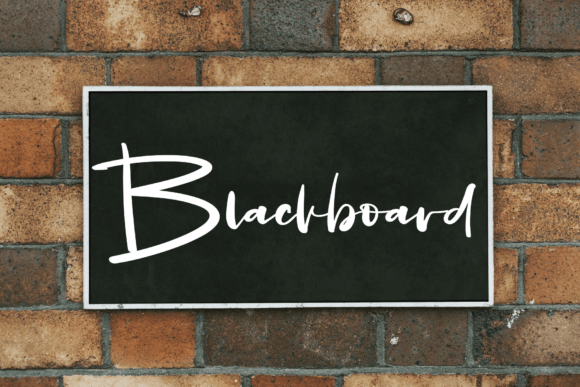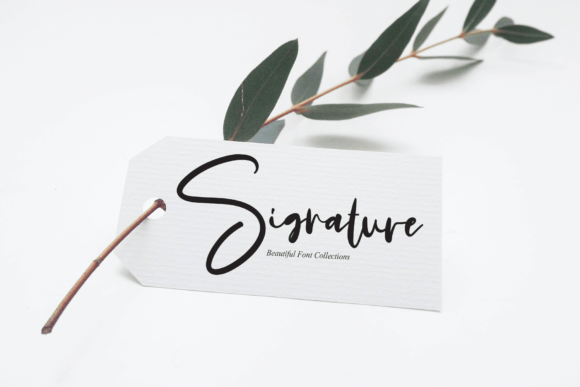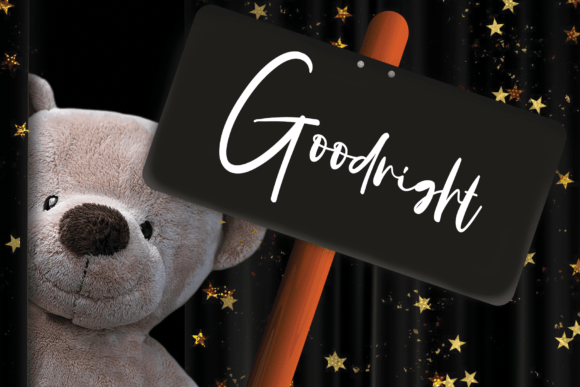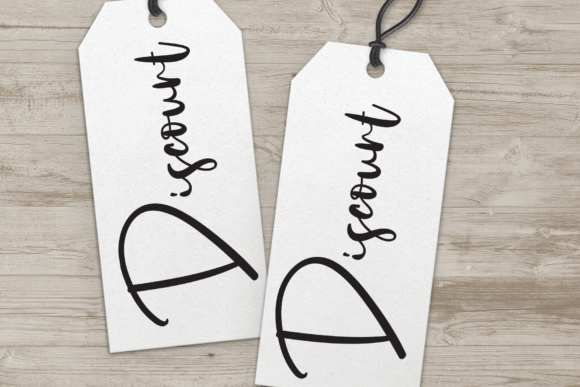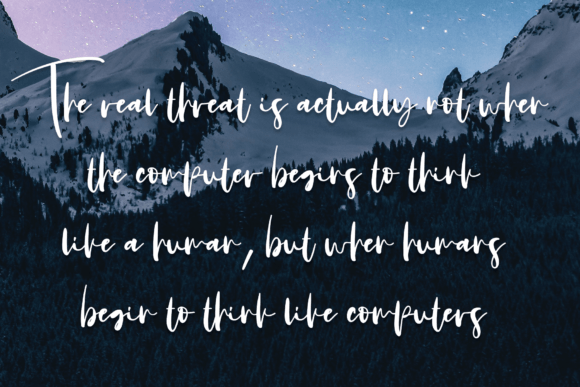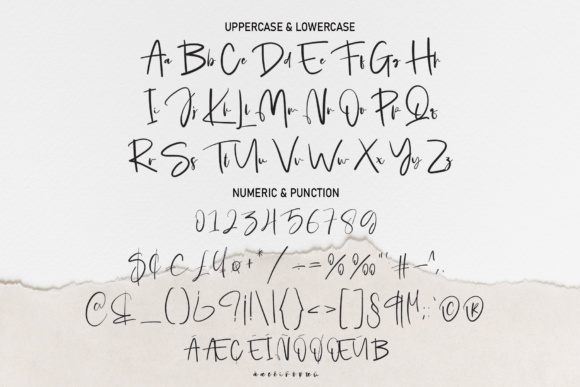
The Art of Signature Style
Have you ever been in a creative flow, pouring your heart and soul into a design project, and suddenly, the perfect font pops up, elevating the entire piece to the next level? For designers, that moment is pure magic. It’s the moment when all the elements come together, and the design starts to tell a story.
That’s exactly what the Calligraphy Signature Font is designed to do. This modern script calligraphy typeface is a masterclass in elegance and sophistication, perfect for logo design, branding, covers, posters, and more. With its unique flow and personality, the Calligraphy Signature Font adds a touch of luxury to any design project, making it stand out from the crowd.
As a designer, you know the value of a well-chosen font. It’s not just about aesthetics; it’s about conveying the message and personality of your brand. The Calligraphy Signature Font is a valuable addition to any designer’s toolkit, offering a versatile and stylish solution for a wide range of design needs.
Key Features of Calligraphy Signature Font
- Unique Characteristics: The font features elegant, flowing lines and subtle flourishes, making it perfect for creating beautiful, handwritten signatures and calligraphy-style designs.
- Font Styles: The font includes 10 different font styles, ranging from classic to modern, allowing users to choose the perfect style to match their design needs.
Calligraphy Signature Font Review
I recently had the chance to work with the Calligraphy Signature Font, and I must say it’s a beautiful addition to any design project. ✨ The elegant script and flowing lines are perfect for creating a sophisticated and elegant look.
The font is highly customizable, allowing you to adjust the size, color, and spacing to fit your needs. ✨ It’s also very versatile and can be used for a wide range of applications, from invitations and wedding stationery to business cards and marketing materials.
While the Calligraphy Signature Font is a great choice for many projects, there are some limitations to be aware of. ⚠️ The font is not ideal for large blocks of text, as it can become difficult to read. It’s also not suitable for digital signage or displays that require a high level of legibility.
In conclusion, the Calligraphy Signature Font is a beautiful and elegant addition to any design project. While it may have some limitations, it’s a great choice for creating a sophisticated and elegant look. If you’re looking for a unique and stylish font, I would definitely recommend giving it a try.
- Beautiful script and flowing lines
- Versatile and suitable for a wide range of applications
- Not ideal for large blocks of text
Calligraphy Signature Font: A Practical Application Guide
Experiment with different font sizes and styles to create a unique and personalized look. Use the font in combination with other design elements, such as images and shapes, to create a visually appealing design. Consider using the font in a cursive or handwritten style to add a personal touch.
The Calligraphy Signature Font is perfect for creating custom business cards, invitations, and other paper-based materials. It’s also great for adding a personal touch to digital designs, such as social media graphics and presentations.